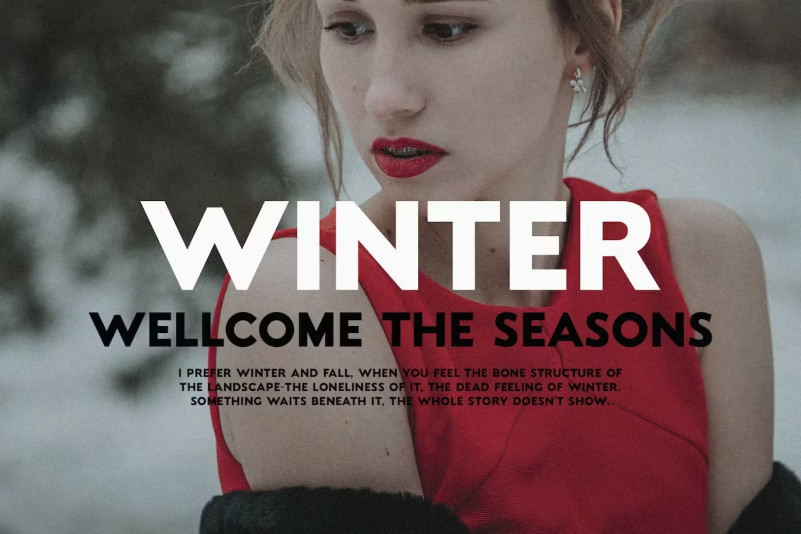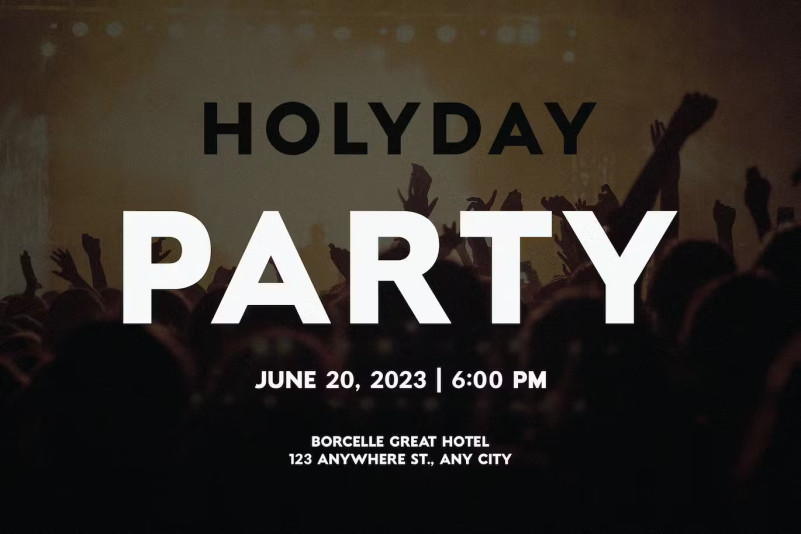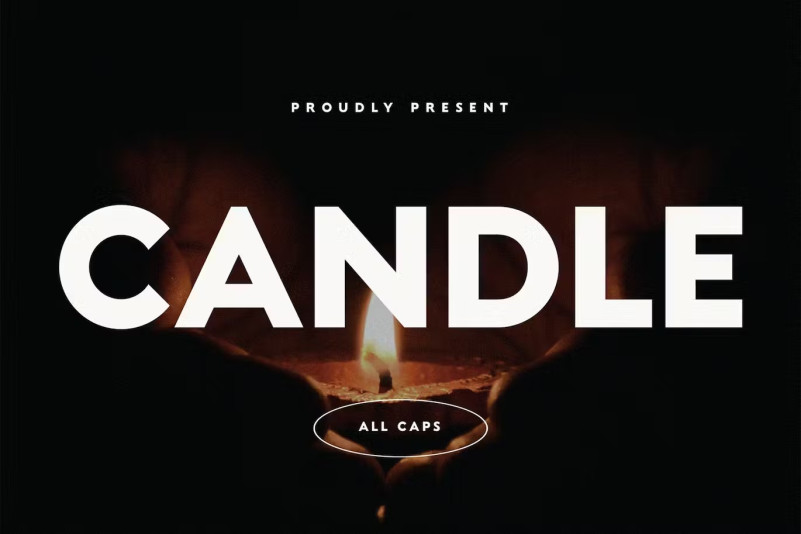
Candle Font
Candle Font – Modern Sans-Serif Font . Candle is a sleek and modern fontless font. Bold font typefaces impress firmly, while maintaining a clean and modern look. This font is modern and stylish and works great for websites, logos, magazines, and social media. This font is matching and ready to be used together for your next design! For those of you who need a touch of elegance, style, class, chic and modernity to your designs, this font is for you!